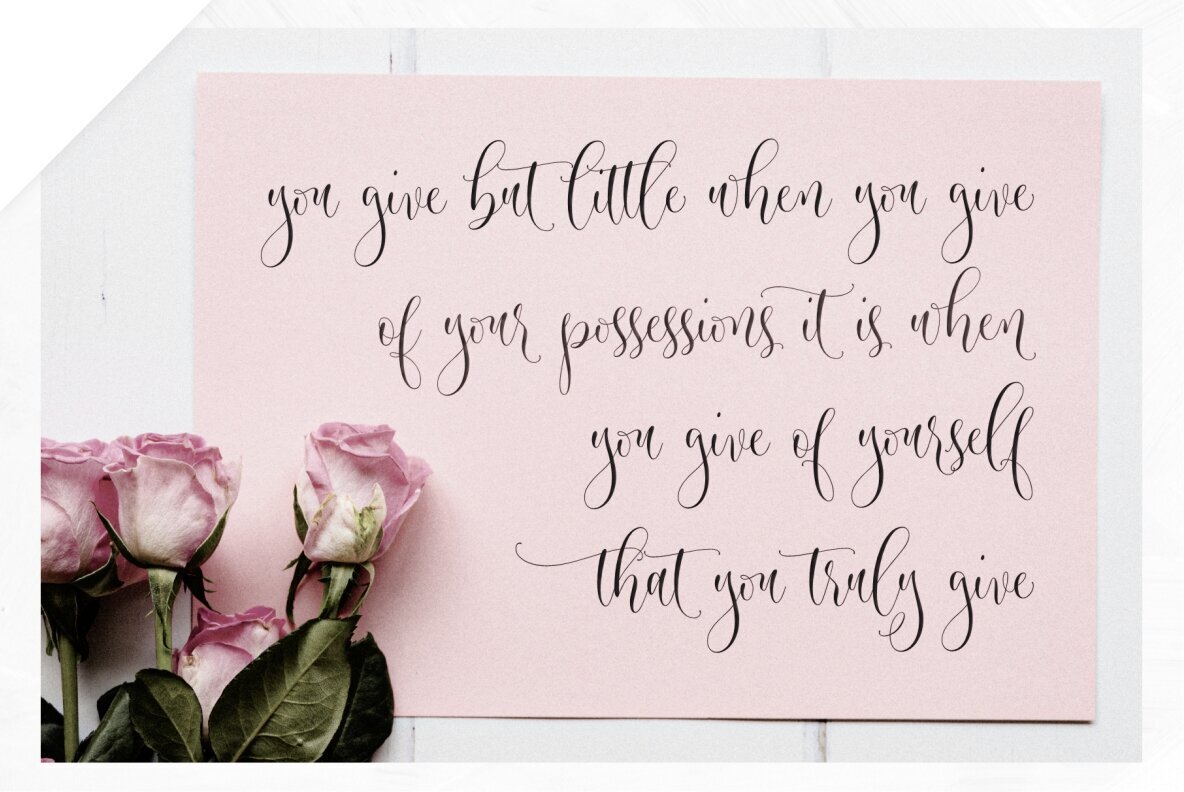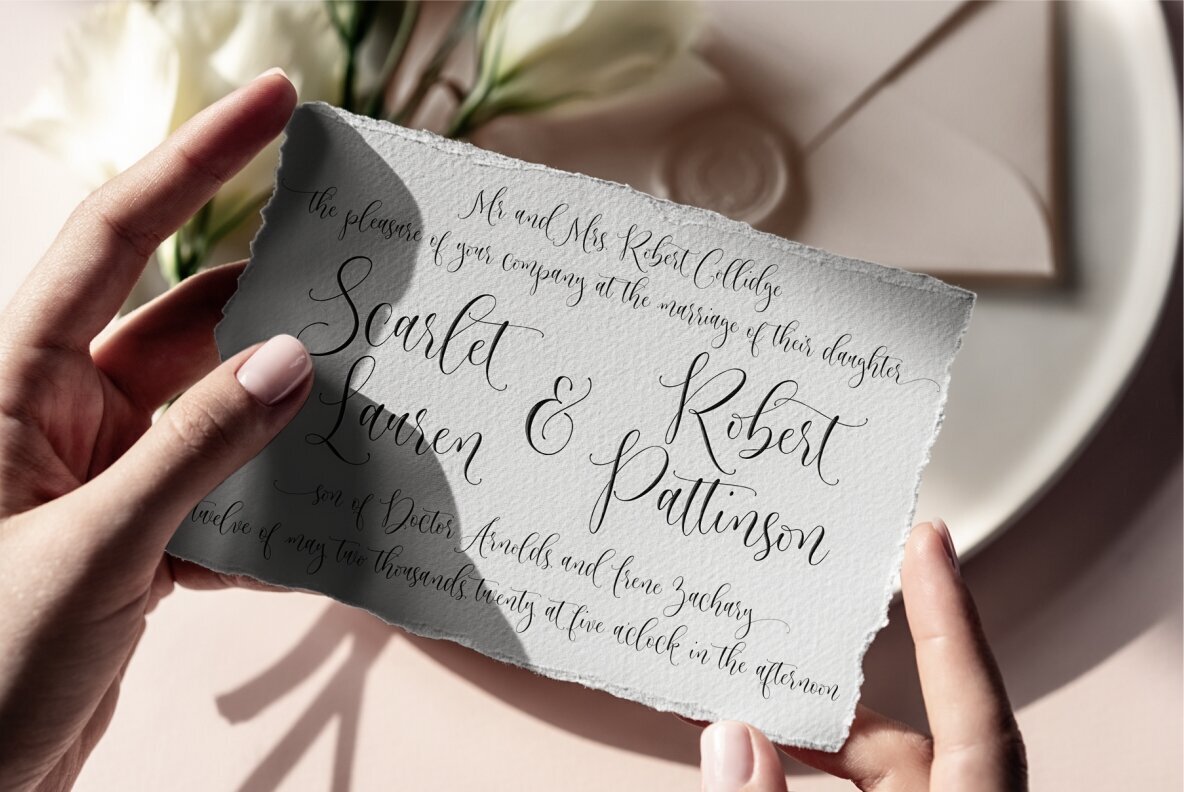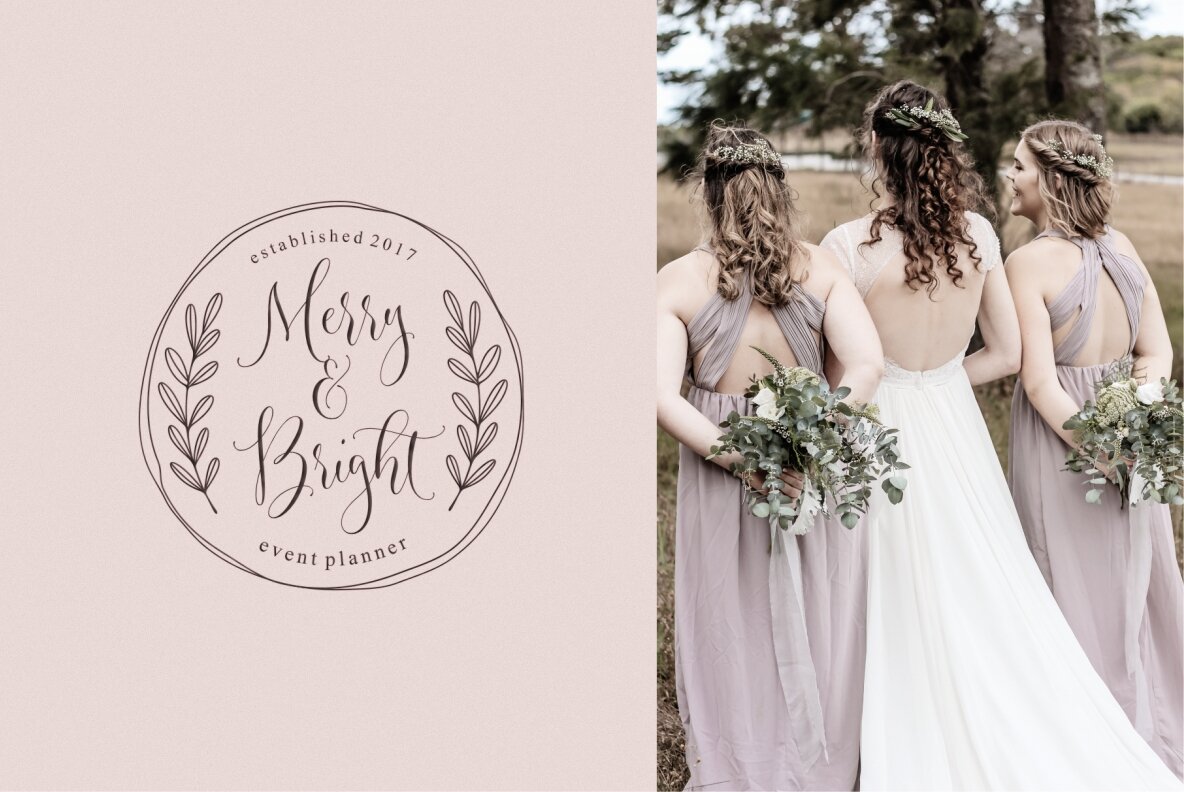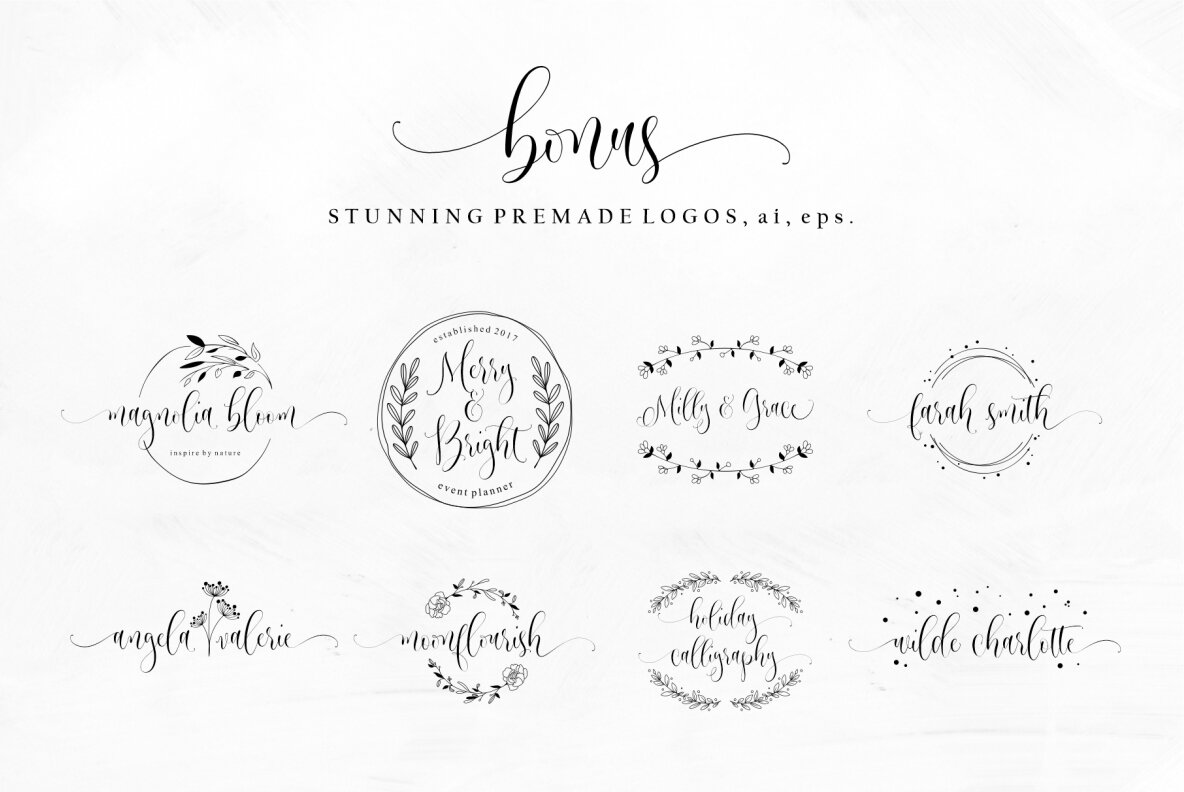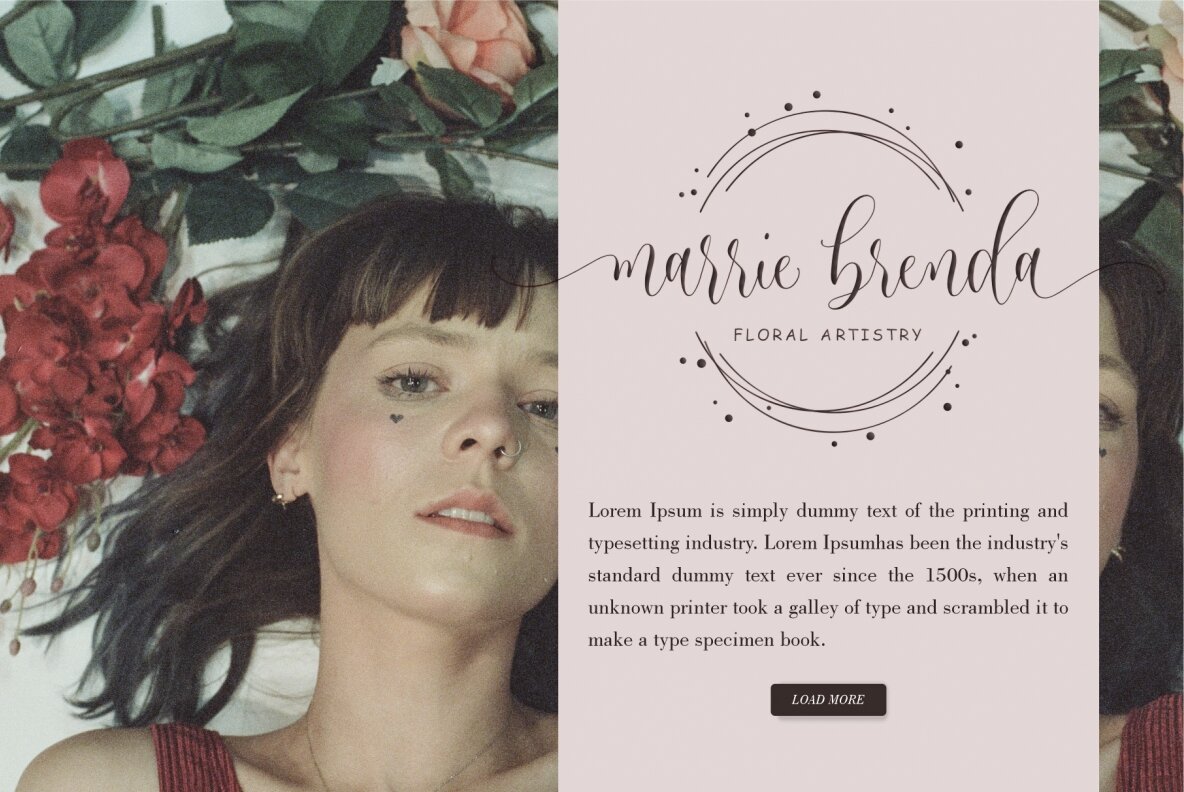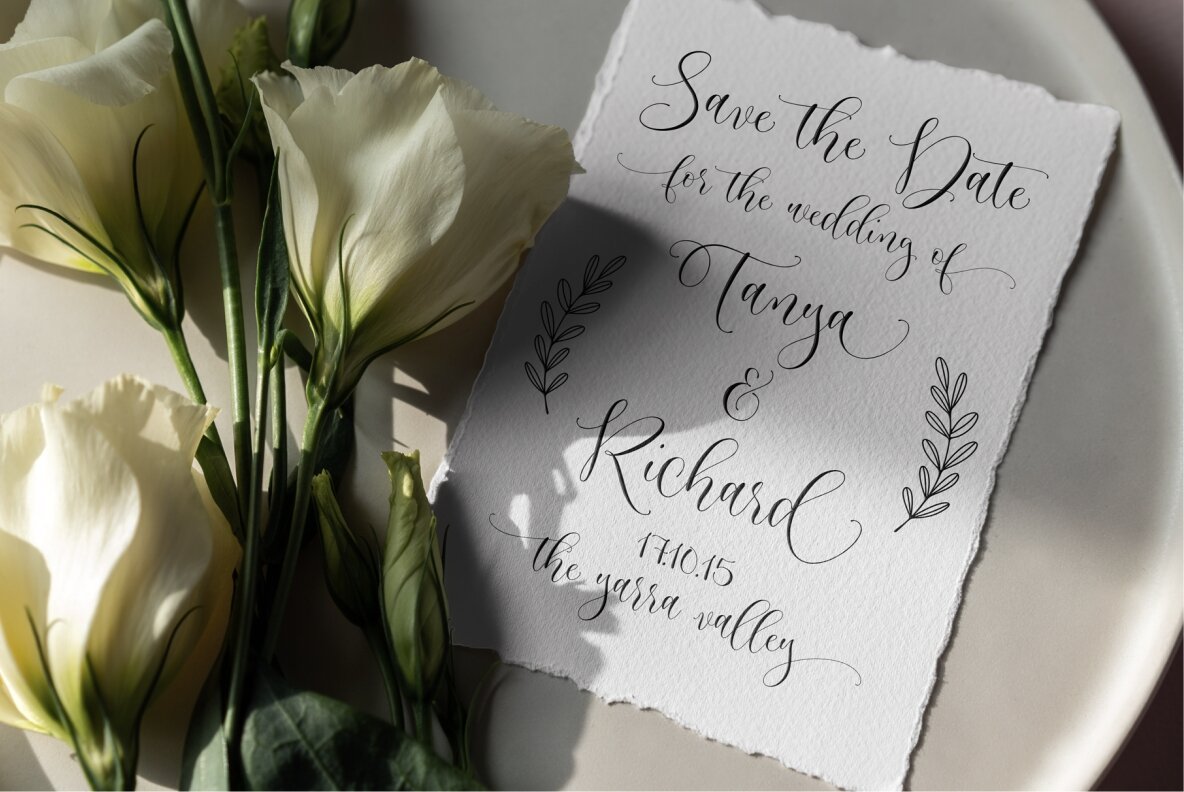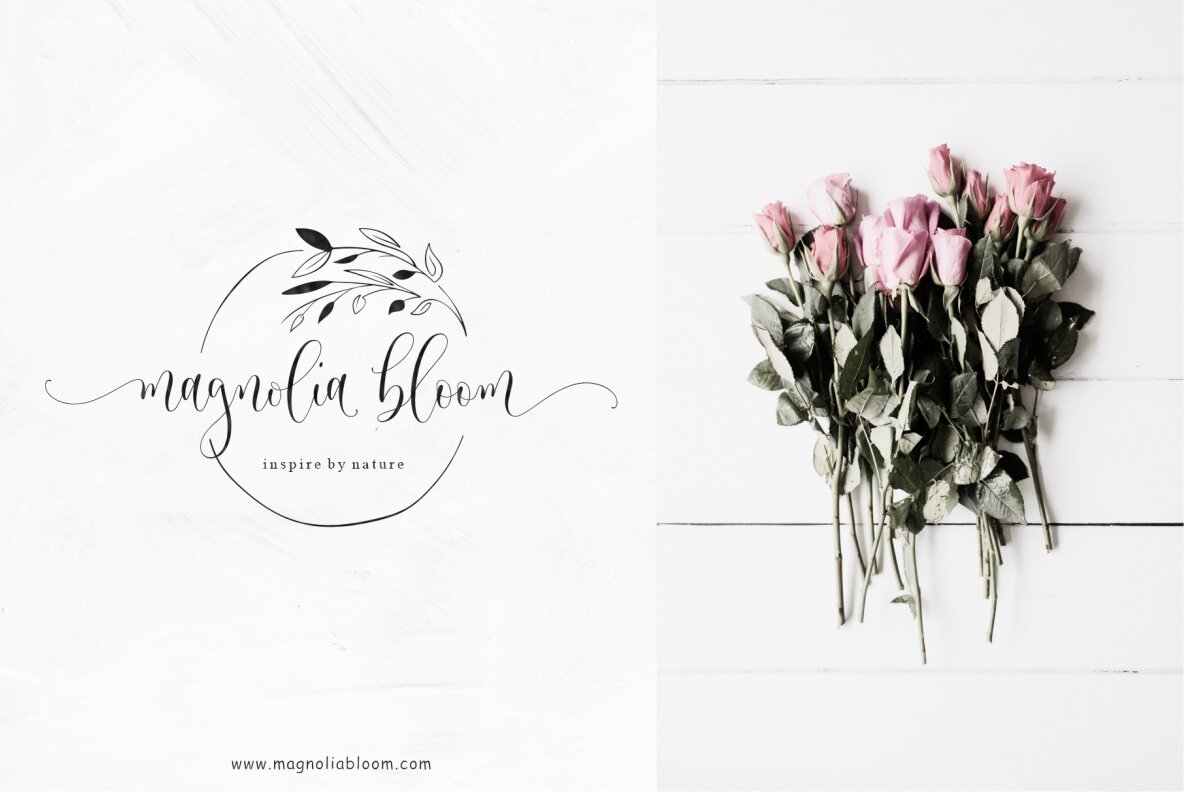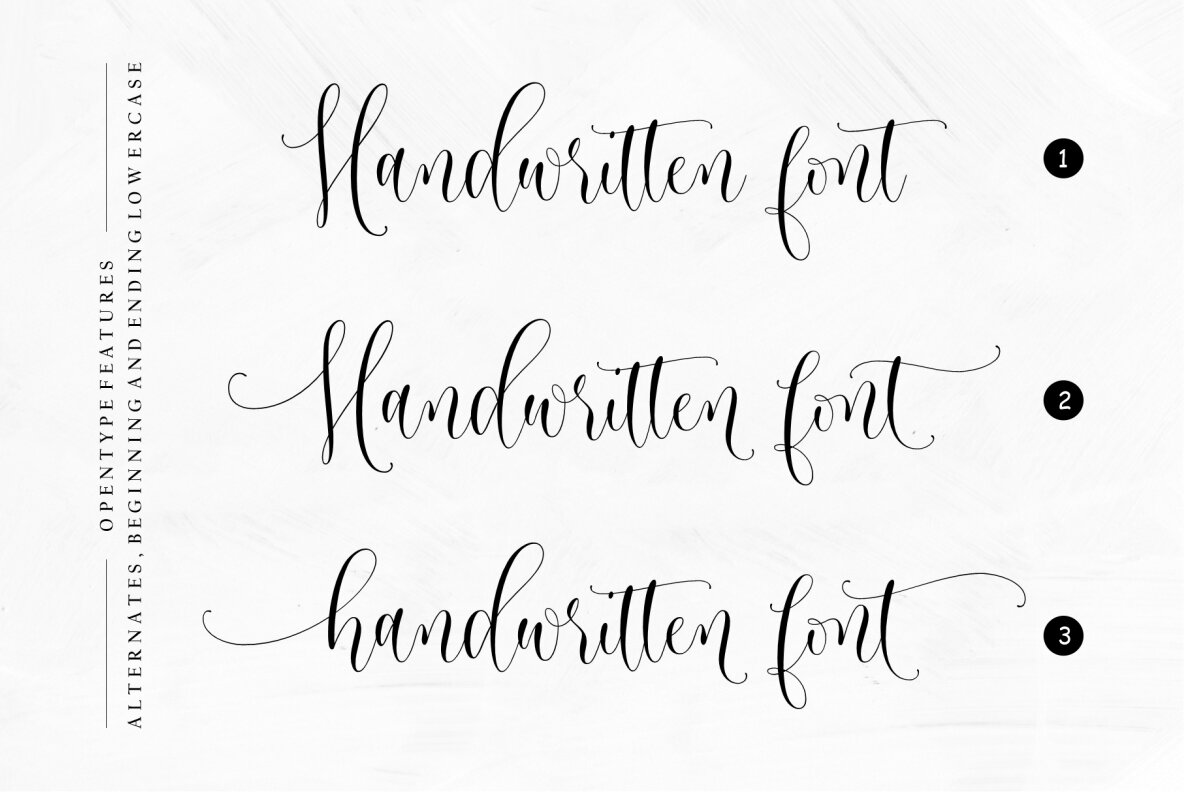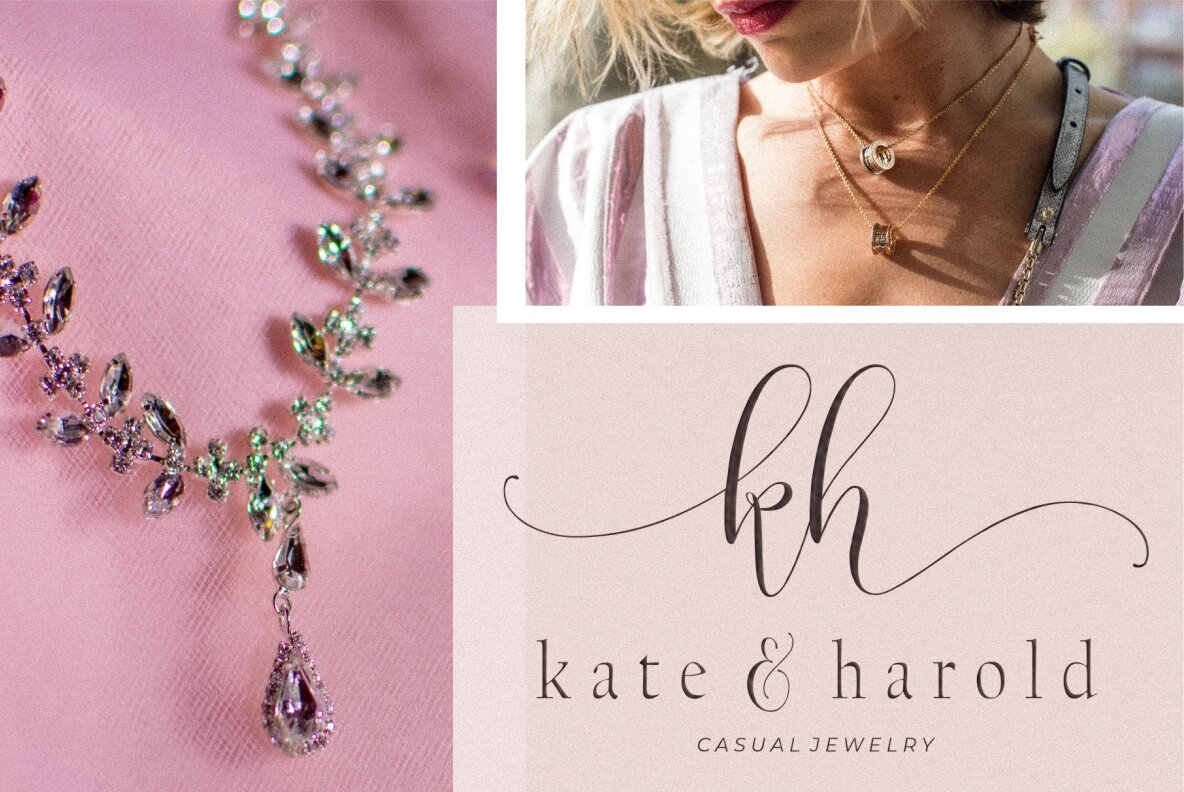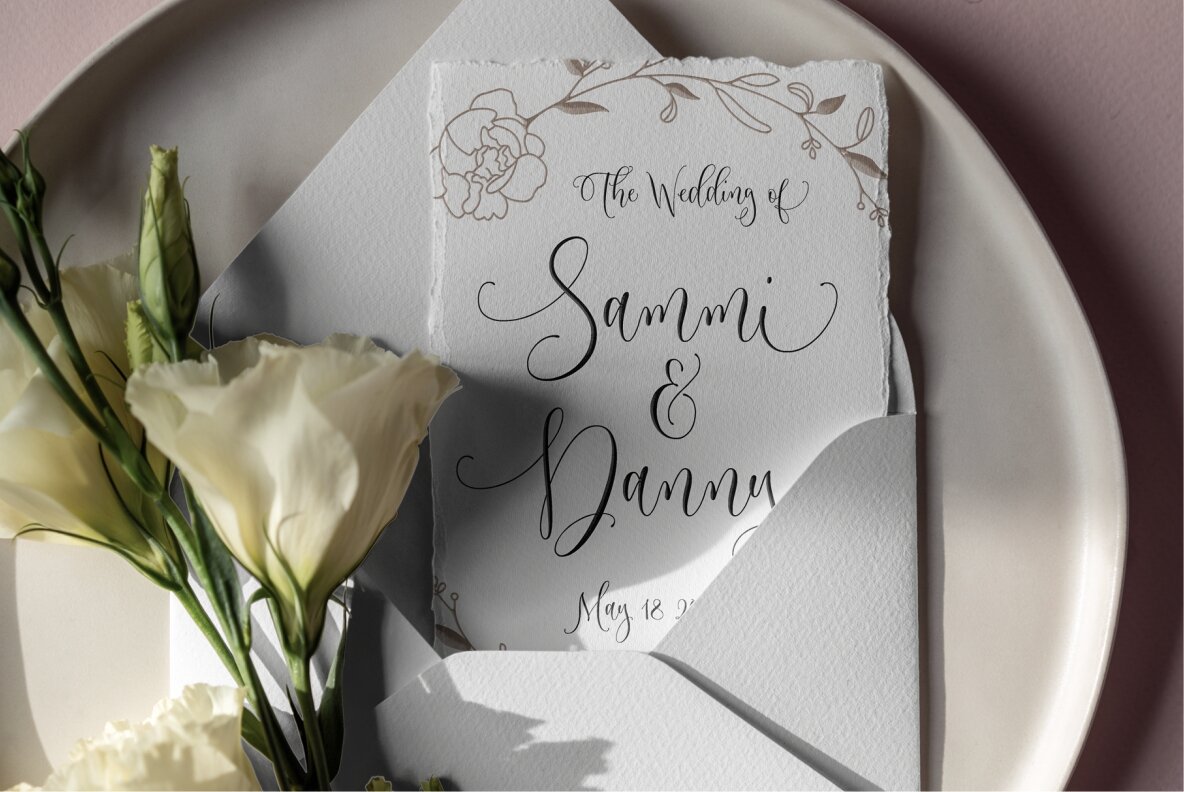
Magika Font
Magika emerges as a sophisticated calligraphy font, exquisitely crafted to add an elegant touch to your projects. This captivating typeface balances unique letter shapes with a contemporary flair, making it particularly suitable for luxurious designs that aspire to stand out. This multifunctional font is ideal for a range of applications. Whether it's for branding, packaging, or editorial design, Magika offers a refined aesthetic that can transform your creative work. Magika is a distinguished choice for designers aiming for a seamless blend of elegance and contemporary style.Magika: Elegant Calligraphy Font